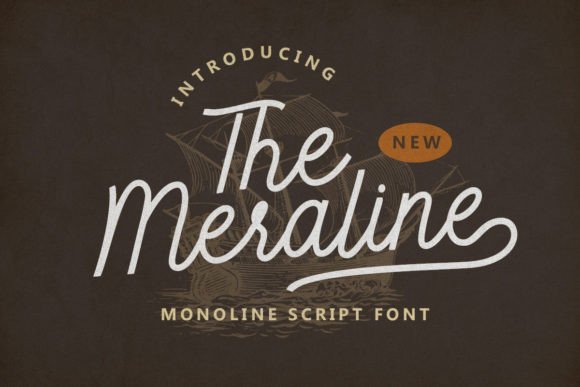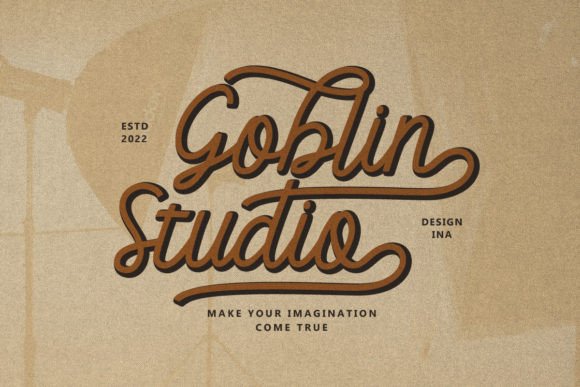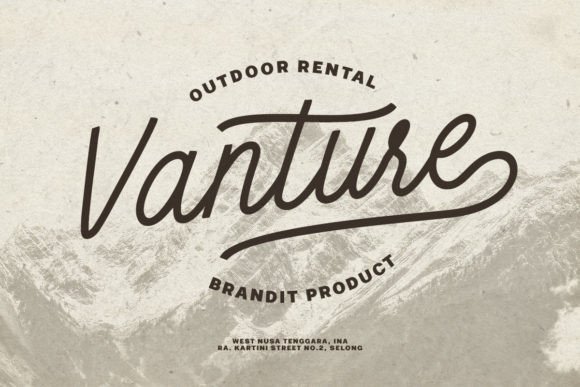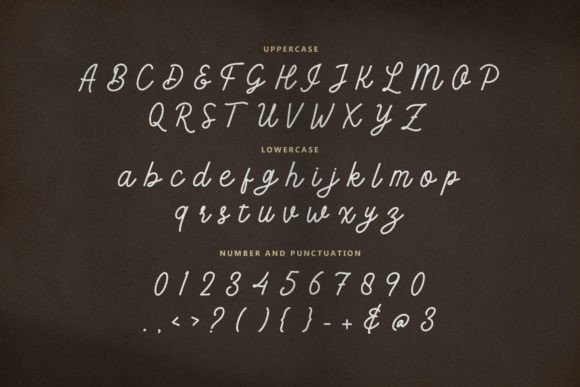
Meraline Font
About the Meraline Font
Add a touch of class to your work with the Meraline Font, a truly exceptional typeface. Meraline is a monoline script that contains uppercase lowercase and also alternates each character that will make your design more attractive and stunning. With hand lettering and outdoor feels, you can use this font for any purpose, especially logotype. You also can use this font for quotes and apparel.
Meraline’s hand-lettered style and monoline weight lend it best to display applications such as logos, short headlines, and quotes where its unique character can shine. It’s ideal for branding projects aiming for a handcrafted, slightly rustic, yet elegant feel, and works well on packaging or apparel where legibility at smaller sizes isn’t crucial. Avoid using it for large blocks of body text or UI elements; its delicate stroke width and script style make it unsuitable for extended reading.
Pairing Meraline effectively requires considering its organic nature. A clean sans-serif like Montserrat or a geometric sans-serif like Futura would provide a strong contrast and enhance readability in supporting text. For a more traditional feel, a classic serif such as Garamond or a more modern serif like Lato can be used.
The overall personality of Meraline is elegant yet approachable, suggesting a brand that values craftsmanship and authenticity. Its slightly informal feel is balanced by its refined strokes, making it suitable for brands that want to communicate both sophistication and approachability.